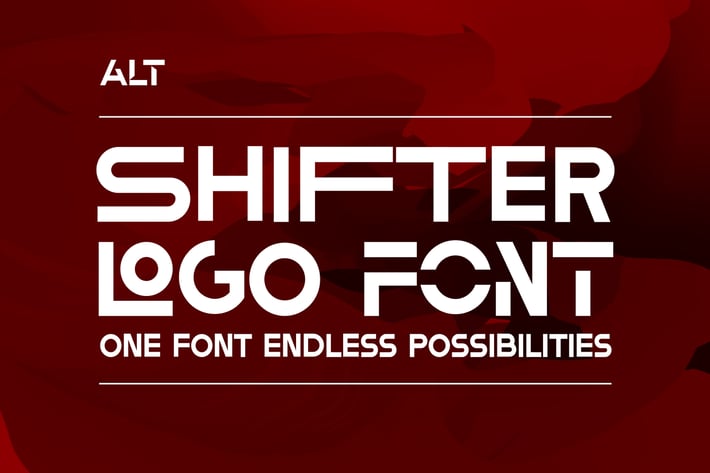
Shifter Font
One font endless possibilities - the ultimate logo font!
Choose different alternative glyph to transform your text to something completely unique.
Ideal for logos, posters, motion graphics and everything else you can think of.
Choose different alternative glyph to transform your text to something completely unique.
Ideal for logos, posters, motion graphics and everything else you can think of.